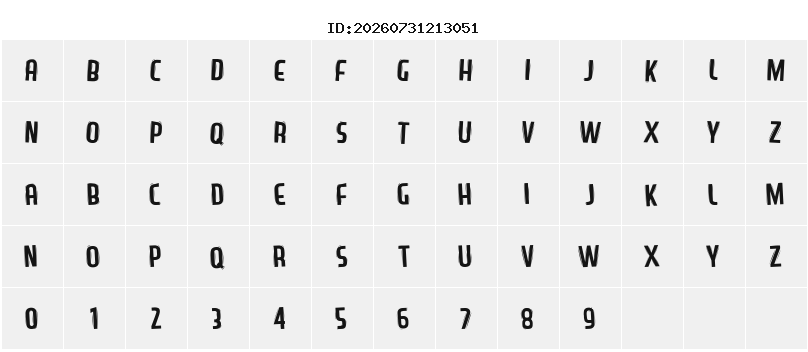
• Font Name: Lazy Sans
• Designer: SoJa
About Lazy Sans.ttf
Lazy Sans.ttf is a modern, elegant sans-serif font designed for ultimate readability and visual harmony. Perfect for branding, headlines, web design, and print materials.